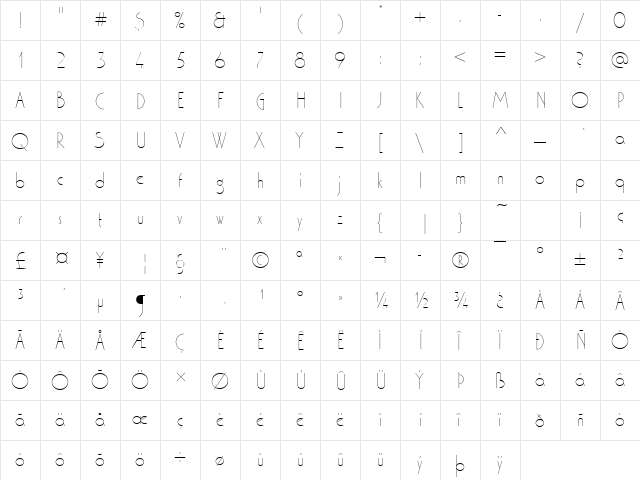
Washington Becker Ext Light Regular
Design Context for Washington Becker Ext Light Typeface
Washington Becker Ext Light offers clean, dependable letterforms without strong stylistic allegiance, making it a practical choice for designers who need flexibility. The delicate stroke weight brings airiness and refinement to layouts.